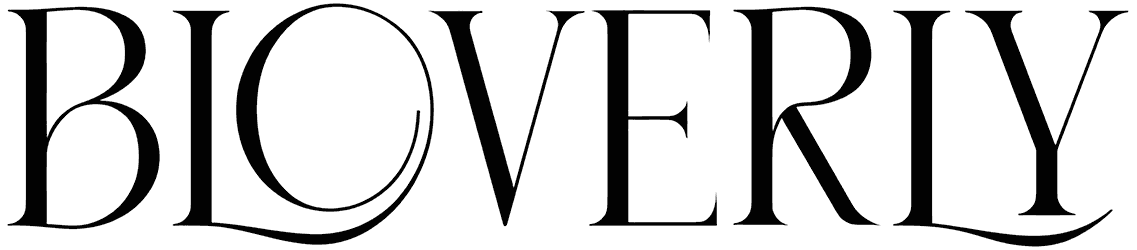
Bloverly Font
As long as a serif font like Bloverly with its classic face can be used for any title, you can design a lot of projects with just one choice. The beautiful and chic style of this luxury font is going to be matched with a…
As long as a serif font like Bloverly with its classic face can be used for any title, you can design a lot of projects with just one choice. The beautiful and chic style of this luxury font is going to be matched with any taste. Use Bloverly font for your new fashion advertisement, drama movie name, or the like, and be impressive.